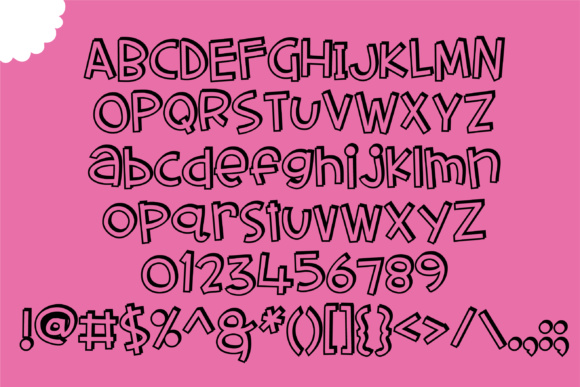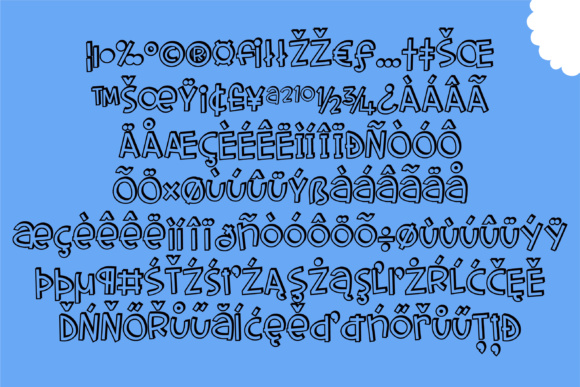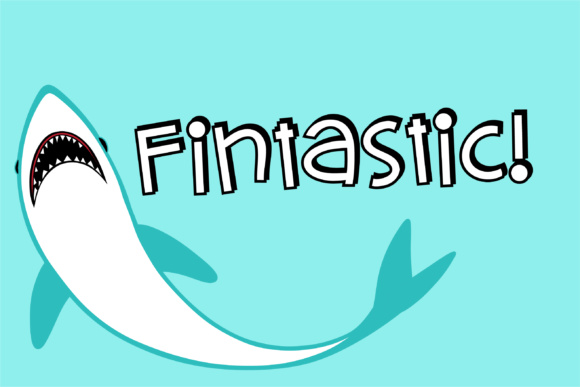
Introduction to Sharkypants Pow Font
Have you ever found yourself staring at a blank canvas, eager to bring your next creative project to life, but struggling to find the perfect font to set the tone? This is where the magic happens – or rather, where the perfect font is waiting to be discovered.
For designers, the search for the ideal font can be a daunting task, especially when working on high-quality projects that require a unique touch. This is where the Sharkypants Pow Font comes into play – a 3D version of the popular Sharkypants font that’s sure to elevate any design.
With its thick outline and shadow, this font is perfect for designers looking to add an extra layer of depth and visual interest to their work. And the best part? It’s available for free download, making it an invaluable resource for any creative project.
Key Features of Sharkypants Pow Font
- High-quality design resource suitable for creative projects and designs.
- Unique, hand-drawn style with a transparent background for easy customization.
- Perfect for adding a touch of personality to designs, logos, and branding materials.
- Can be used in a variety of creative projects, from digital art to print materials.
Honest Review: Sharkypants Pow Font
As a designer, I’m always on the lookout for high-quality design resources to enhance my creative projects. Recently, I stumbled upon the Sharkypants Pow Font, and I’m excited to share my honest review with you.
The Sharkypants Pow Font is a free download that offers a unique, eye-catching aesthetic. The font is available in a variety of styles, making it versatile for different design applications. ✨ One of the standout features of this font is its transparent background, which allows for seamless integration into any design.
- High-quality design with clean lines and crisp typography
- Available in multiple styles for versatility
- May not be suitable for formal or professional applications due to its playful, bold aesthetic
- Some users may find the font too flashy or overwhelming
Overall, I’m impressed with the Sharkypants Pow Font, and I think it’s a great addition to any designer’s toolkit. With its high-quality design and versatile style options, it’s an excellent choice for creative projects that require a bold, eye-catching aesthetic.
To get the most out of the Sharkypants Pow Font, try using it in bold, italics, or all caps to add emphasis to your text. You can also use it in combination with other design elements to create a unique look.
The Sharkypants Pow Font is perfect for use in a variety of creative projects, including:
- Branding and logo design